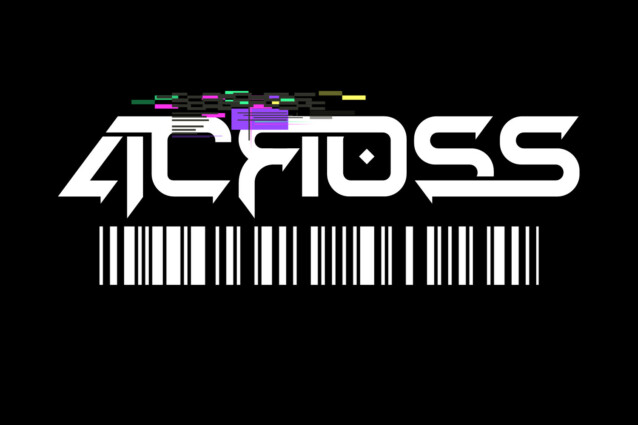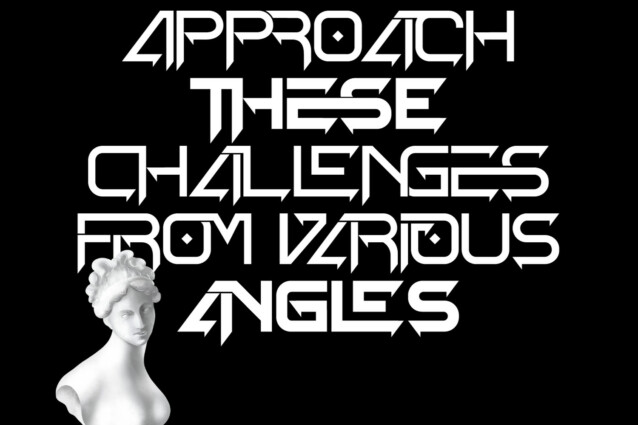
Casual Passion Font
Casual Passion Font is a futuristic font that we designed with a unique and original touch for various types of future designs. It’s a hi-tech logo inspired font with unique and futuristic looks. With sans based, this font also including ligatures that you can use for more options for your logo project. This strong and sophisticated font is very suitable for logo, headline, typography, poster, magazine, brochure, packaging, website and much more for your design needs, it will make your designs even cooler and stand out.
Casual Passion was built with OpenType features and includes 100 ligatures, alternate, numbers, punctuation, and it also supports other languages.
AC AD AL AN AR AS AT AU AV BE CA CE CH CO CT DE DI EA EC ED EE EL EM EN EP ER ES ET FE FO FR GE HA HE HI HO IE IC IL IN IO IR IS IT JU KE LA LE LI LL LO LY MA ME MI NC ND NE NG NO NT NS OC OF OM ON OO OP OR OT OU OW PA PR RA RD RE RI RO RS RT SE SH SI SO SS ST TA TE TH TI TO TR TT UM UN UR VE WI WO